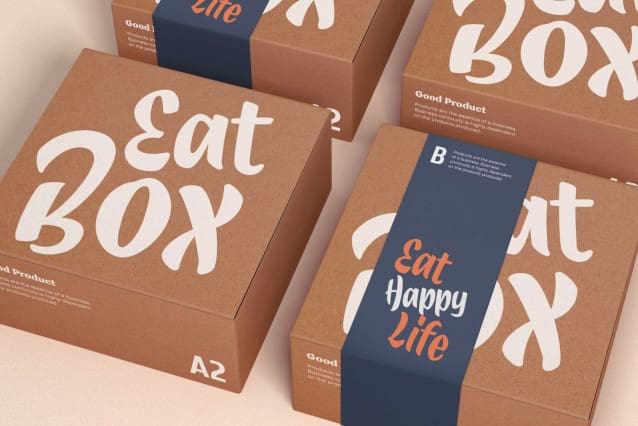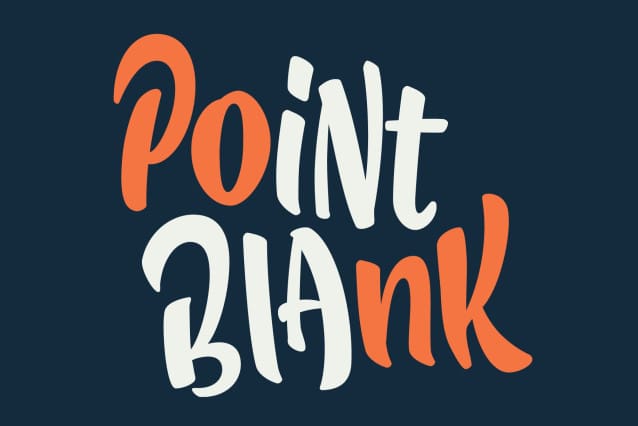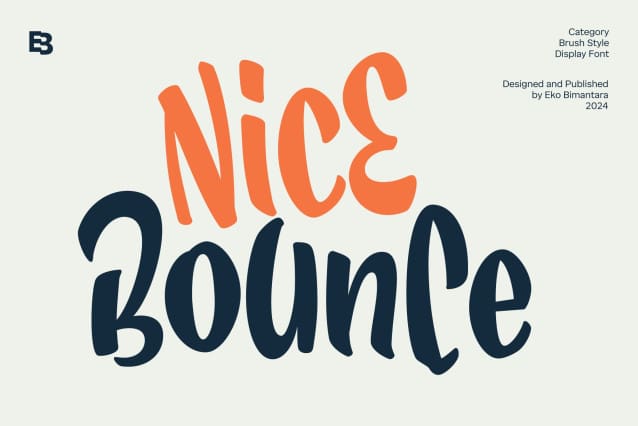
Nice Bounce Font
Nice Bounce Font is a bold brush display font featuring clean, bouncy strokes that allow for playful mixing of lowercase and uppercase characters. Its expressive and dynamic style is perfect for creating bold, fun, and energetic designs, especially for food-related branding, product packaging, and titles. Ideal for large displays, headers, and various creative layouts, Nice Bounce brings a sense of movement and personality to websites, brand identities, and broad graphic design projects, making it a versatile choice for standout visuals.